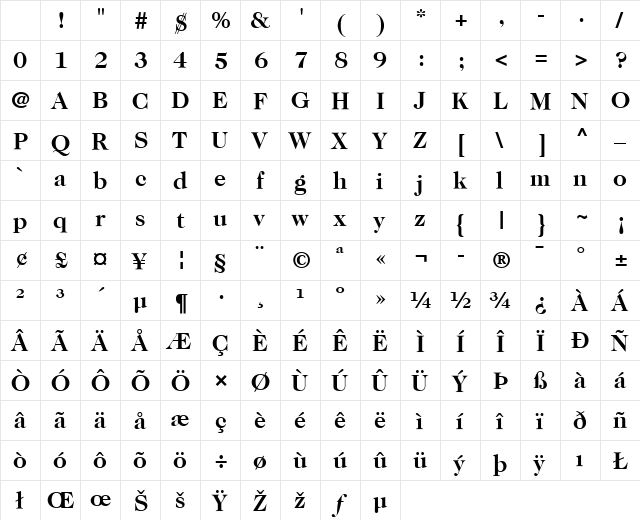
Complete Caslon 224 LT Medium Bold glyph index. Displaying only characters natively supported by Caslon 224 LT Medium Bold font.
Caslon 224 LT Medium is a composed and adaptable typeface that performs quietly and consistently across a wide range of design contexts. Its bold stroke weight gives it real presence on the page.